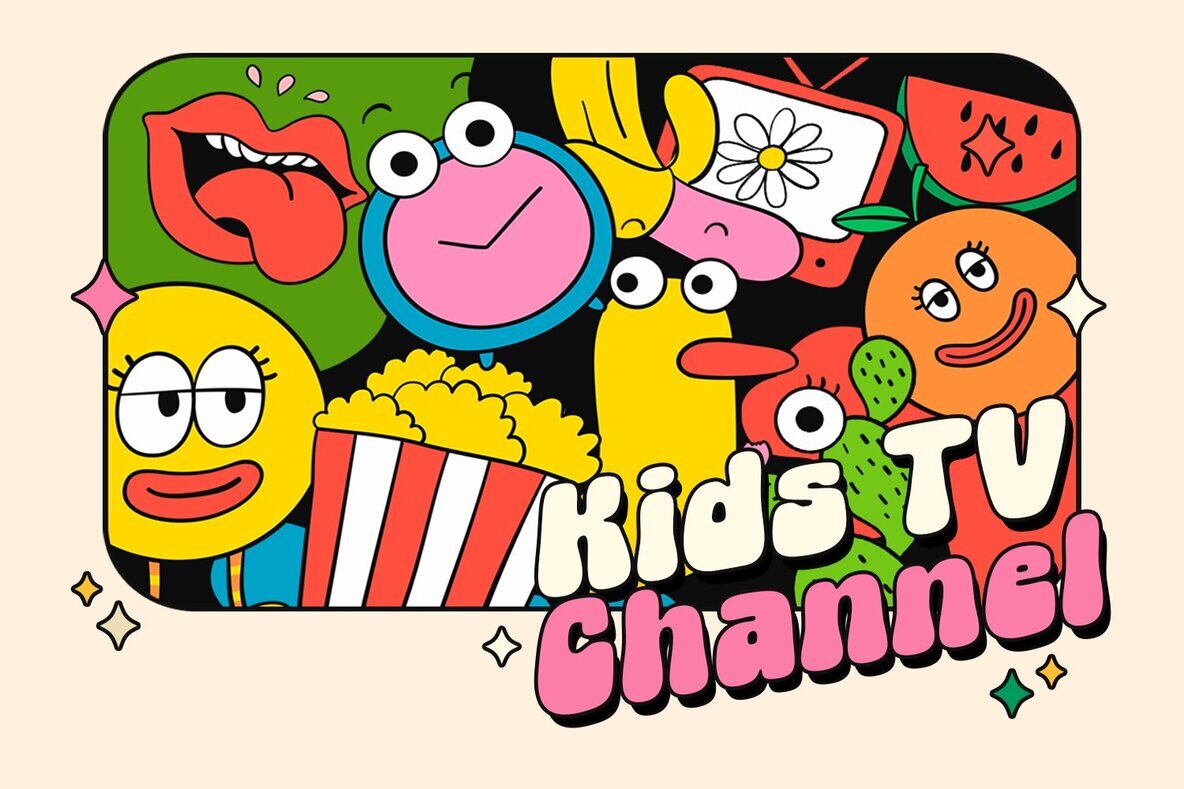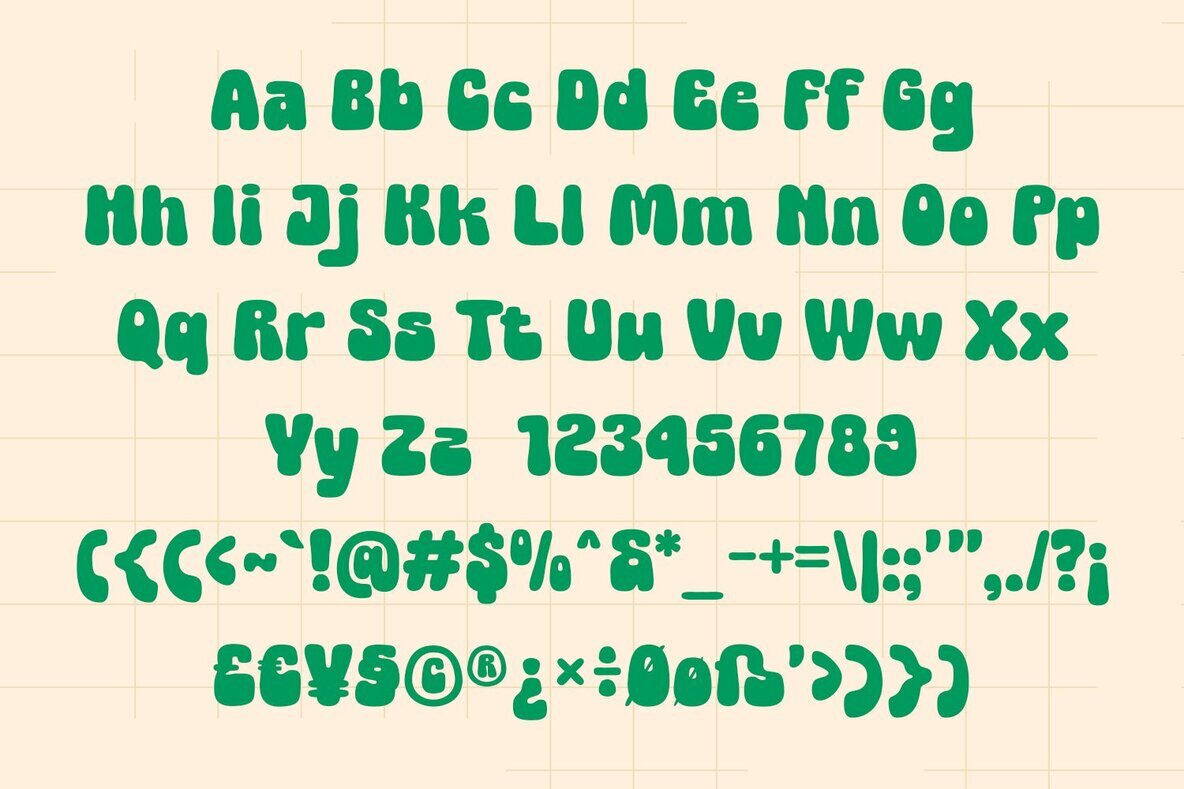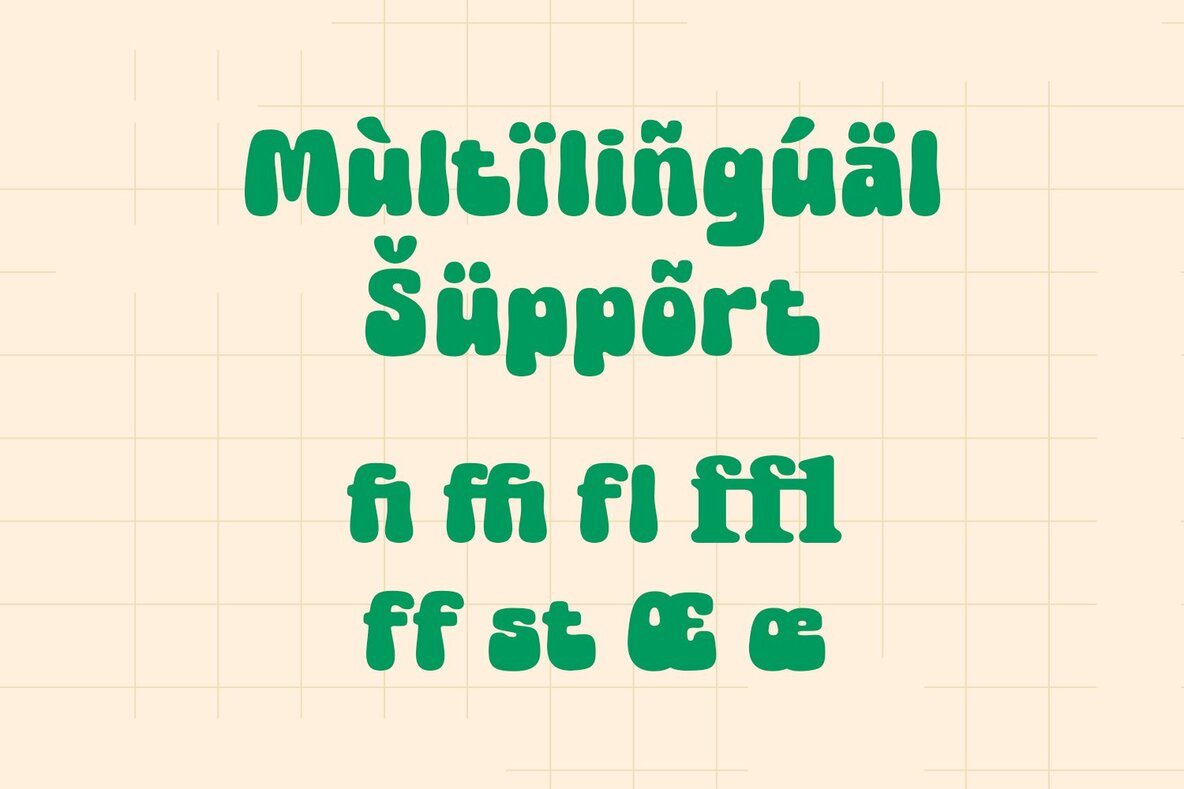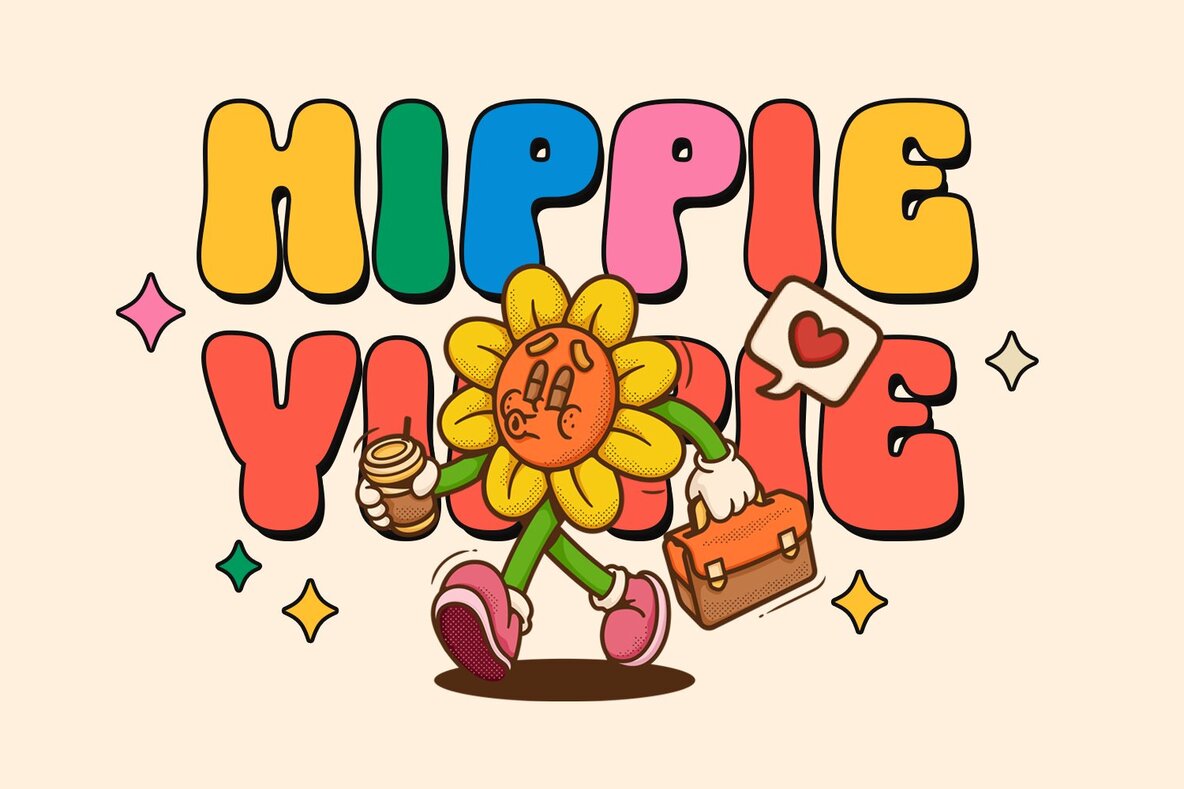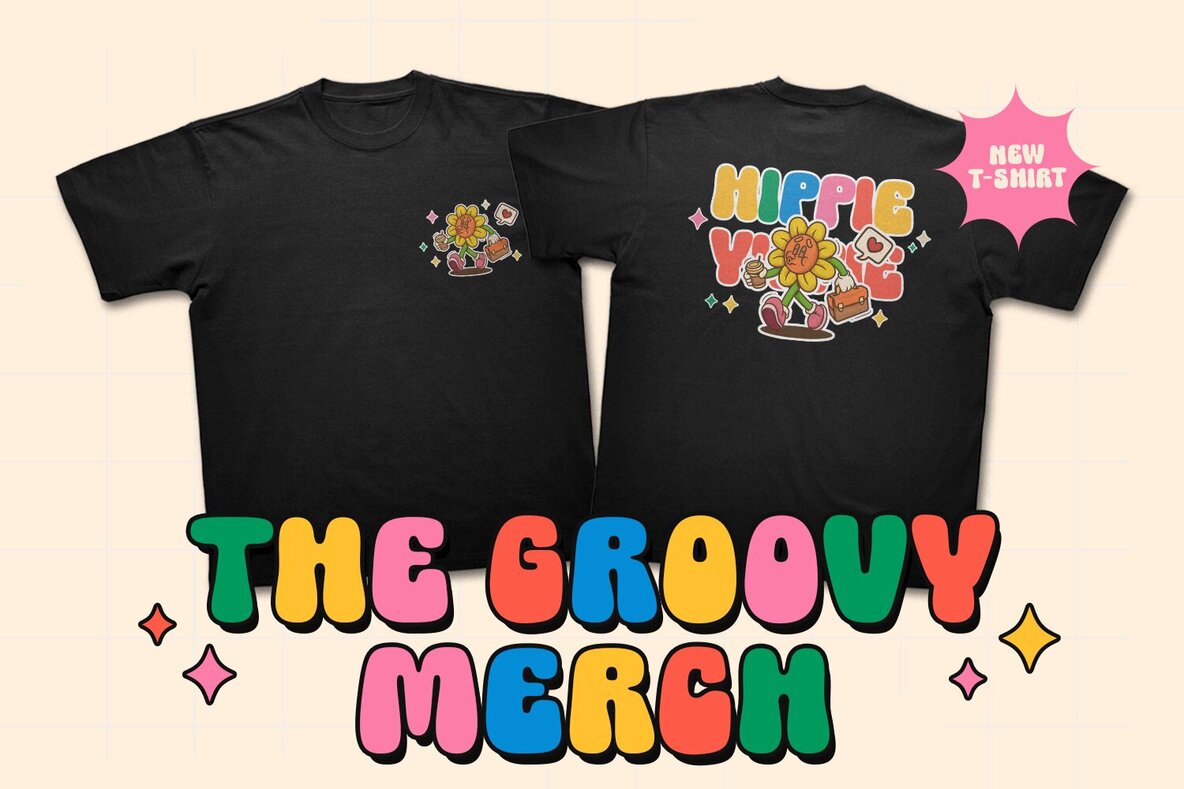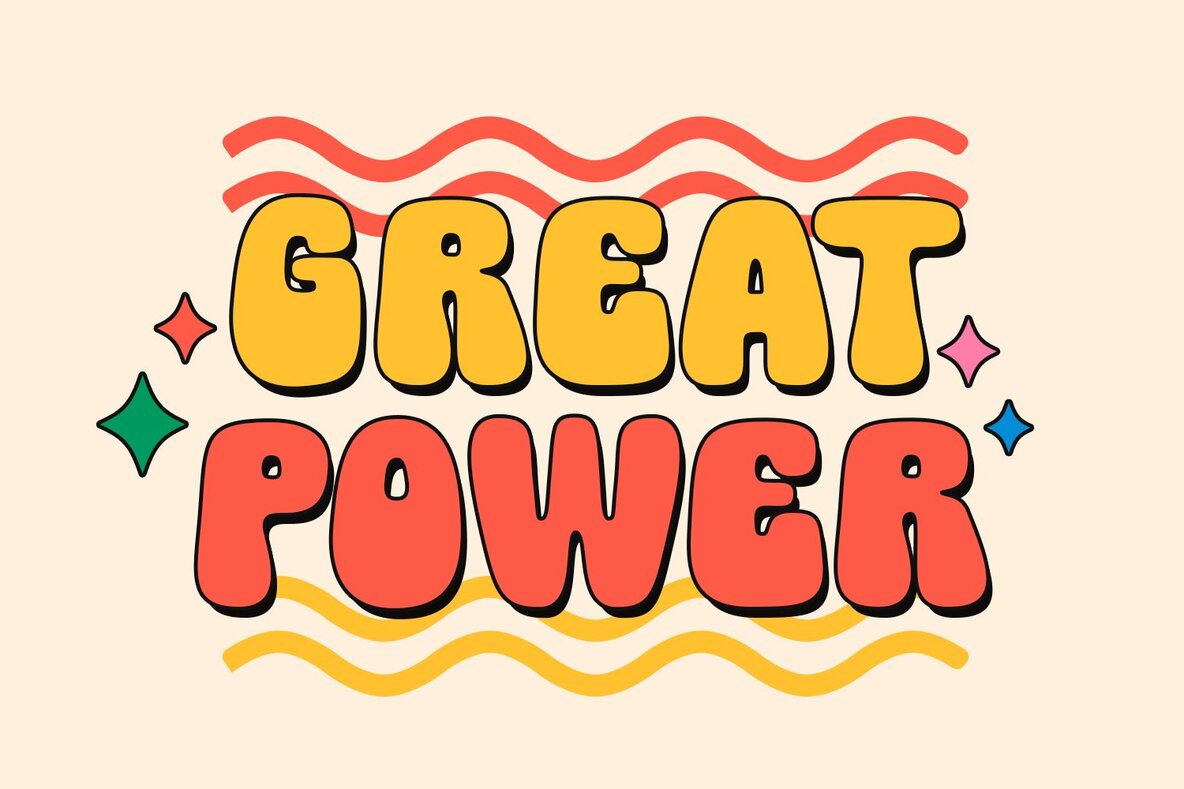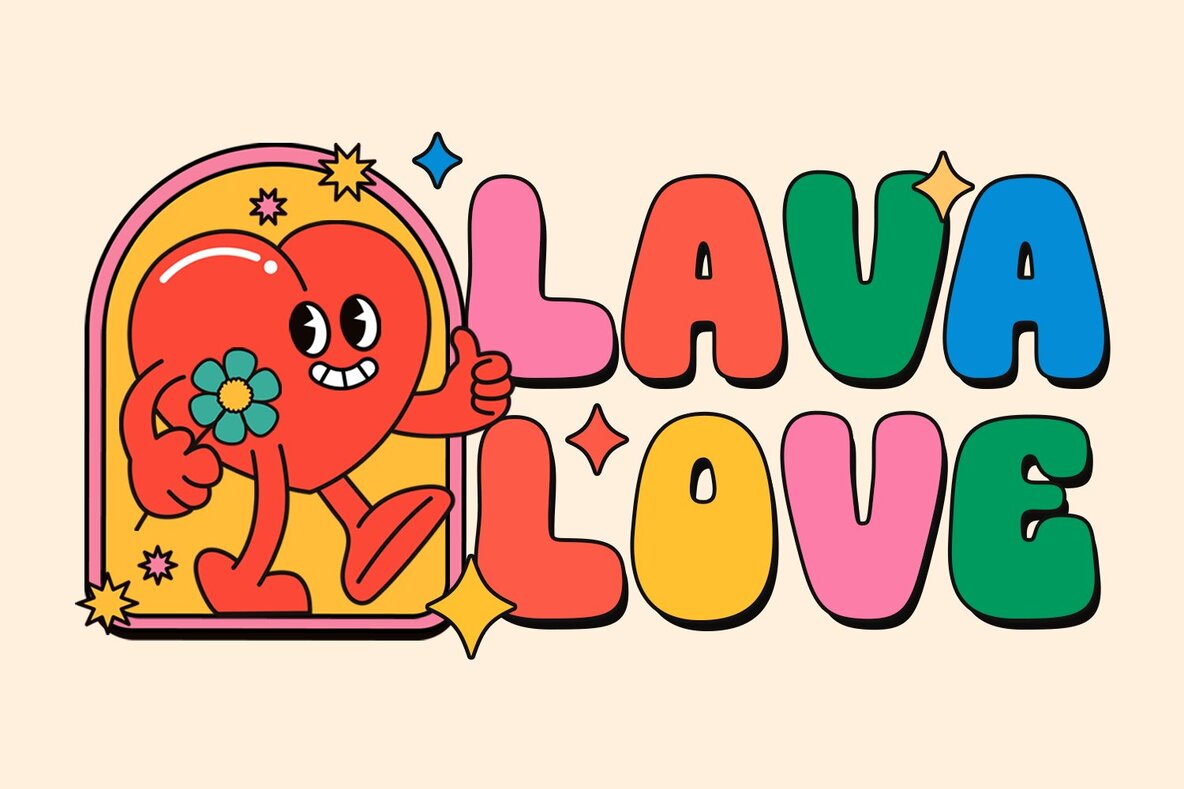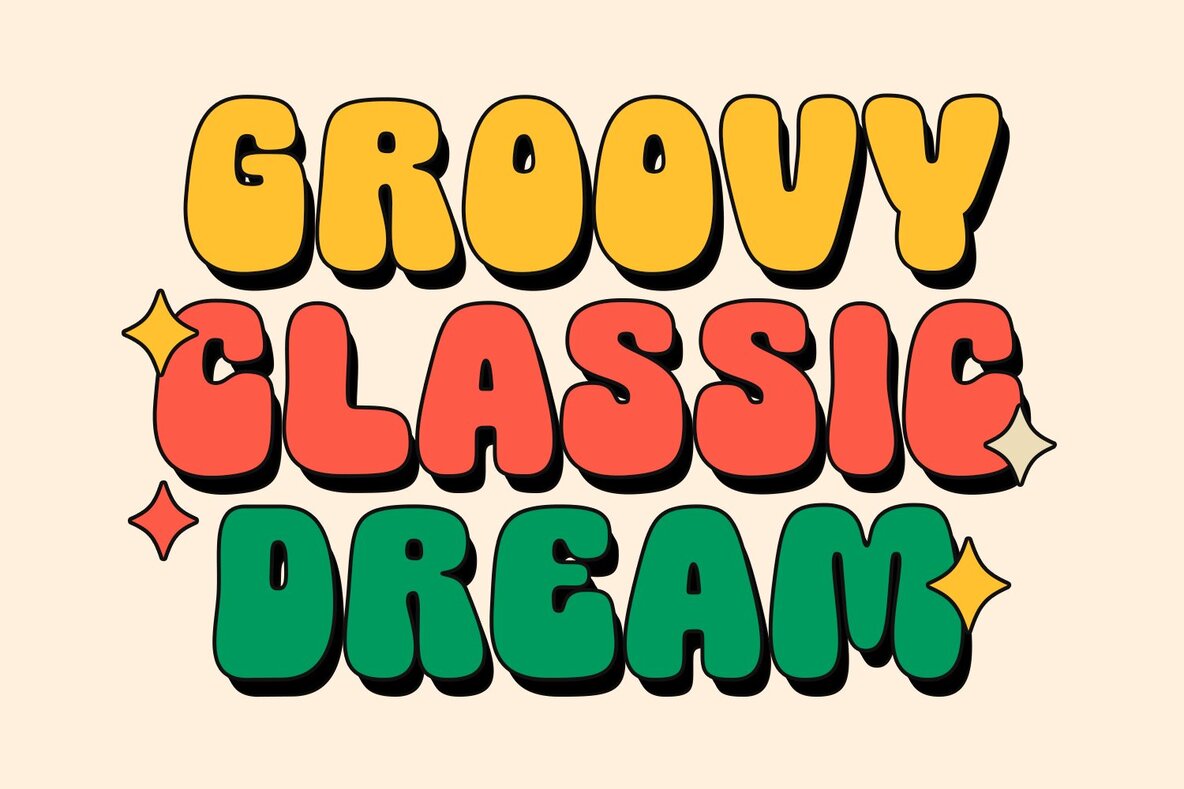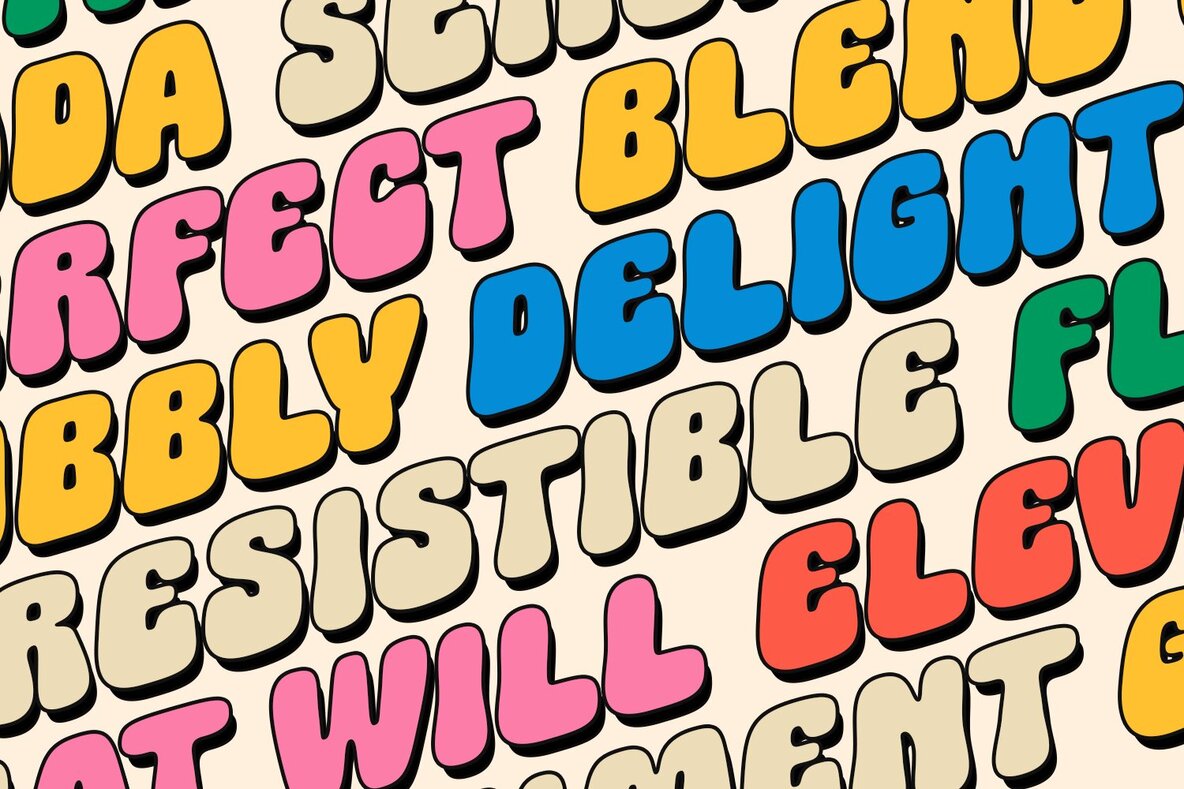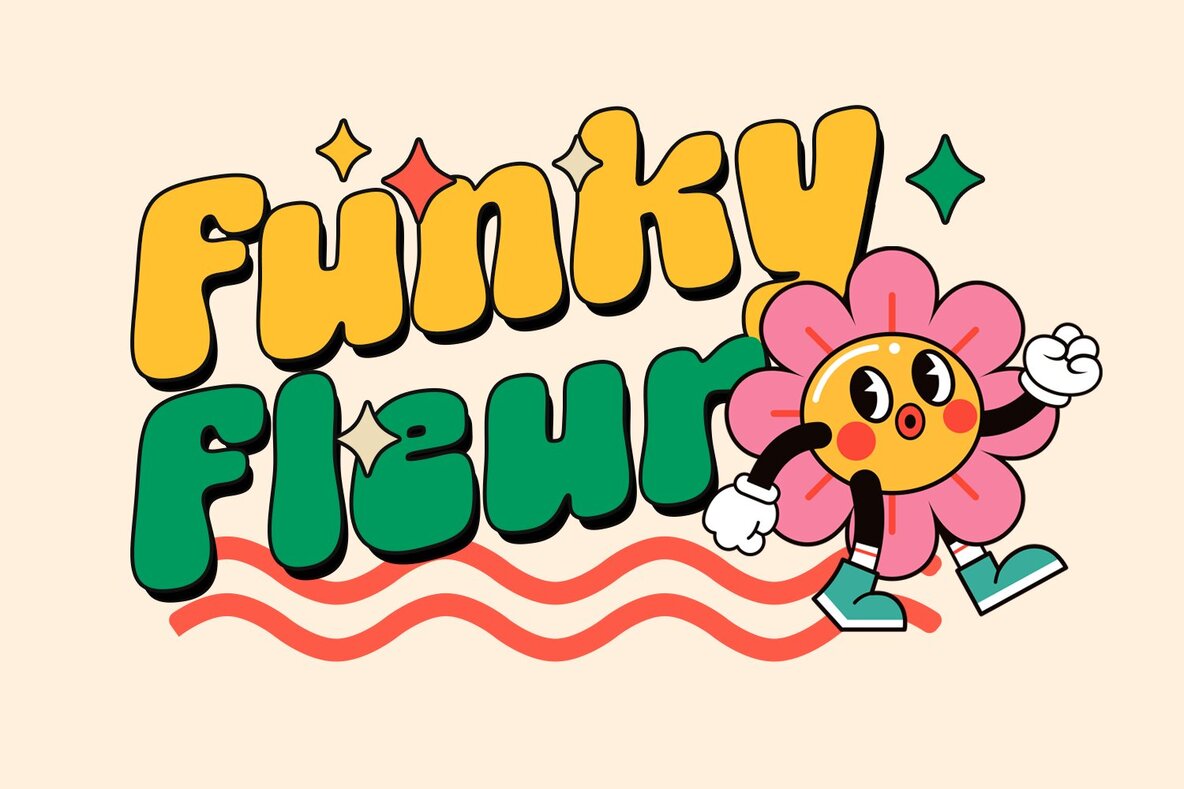
Onde Sunday Font
Onde Sunday Bold
Onde Sunday is a font that blends retro spirit with a modern twist, full of vibrant colors and cheerful vibes. Inspired by the design styles of the 60s and 70s, this typeface brings back a nostalgic feel with its bold, rounded letters and captivating hues. The name "Onde Sunday" draws from the leisurely Sunday tradition, where time slows down and is filled with delightful activities. Each character in this font invites you to savor simple yet meaningful moments, reminiscent of sweet memories from the past.